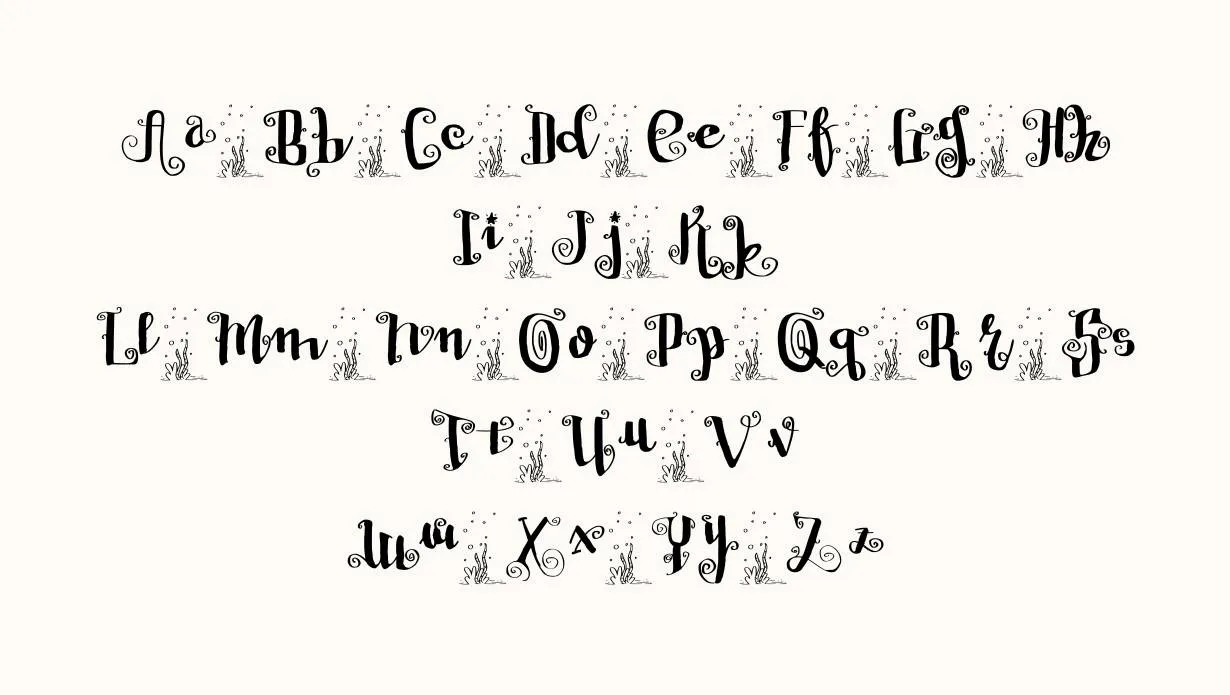
Are you looking for a font that screams nautical and aquatic vibes? Look no further than Deep Sea Font! This design is ideal for anything related to the sea, ocean, and all things marine. Dive into the world of creativity with this unique typeface. You won’t be disappointed!
Its decorative elements add a touch of the deep sea and adventure to your designs, making it a suitable choice for underwater and marine-themed projects. To achieve an exclusive and eye-catching design, it is essential to pair this font with the Unscreen Font.